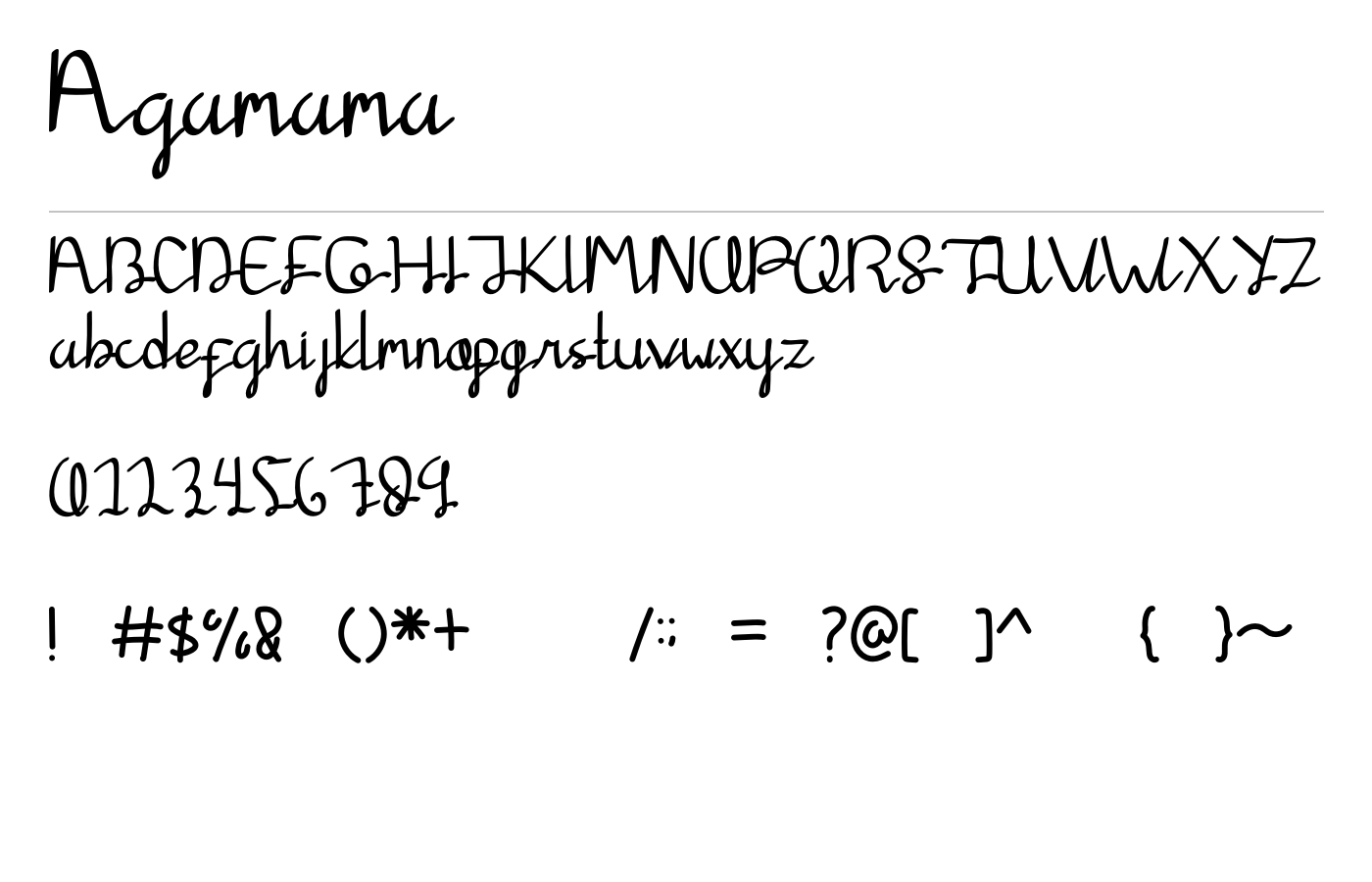
Agamama is a playful handwritten sans serif font featuring a casual, organic feel with irregular strokes and lively letterforms. Its slightly condensed style, tall x-height, and whimsical shapes create a friendly and approachable mood, making it ideal for creative projects, informal branding, and personal invitations. This font works well in contexts that benefit from a personal touch and an inviting, expressive character.
Agamama Font
About Agamama Font